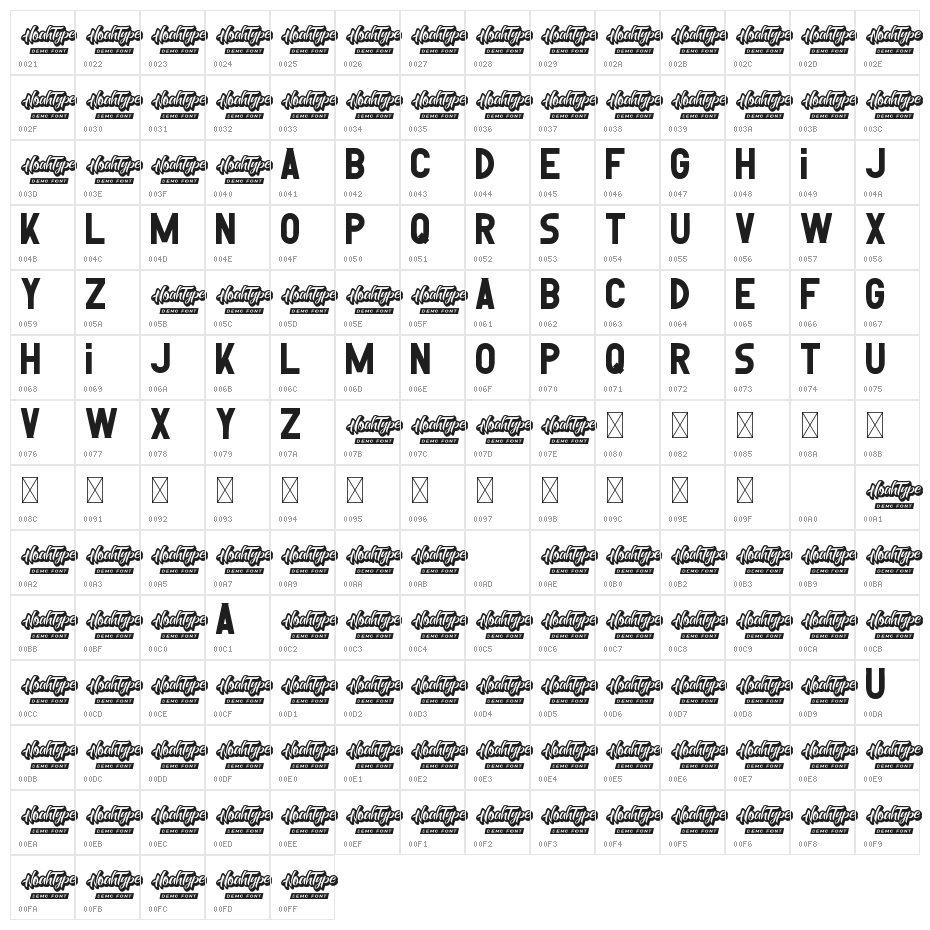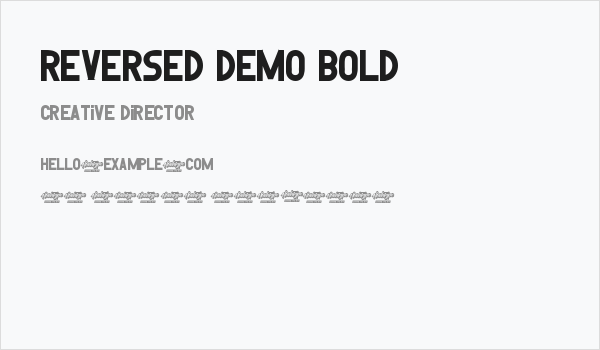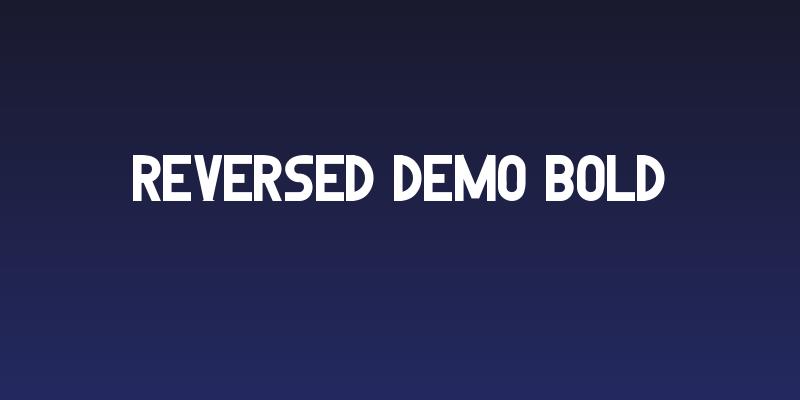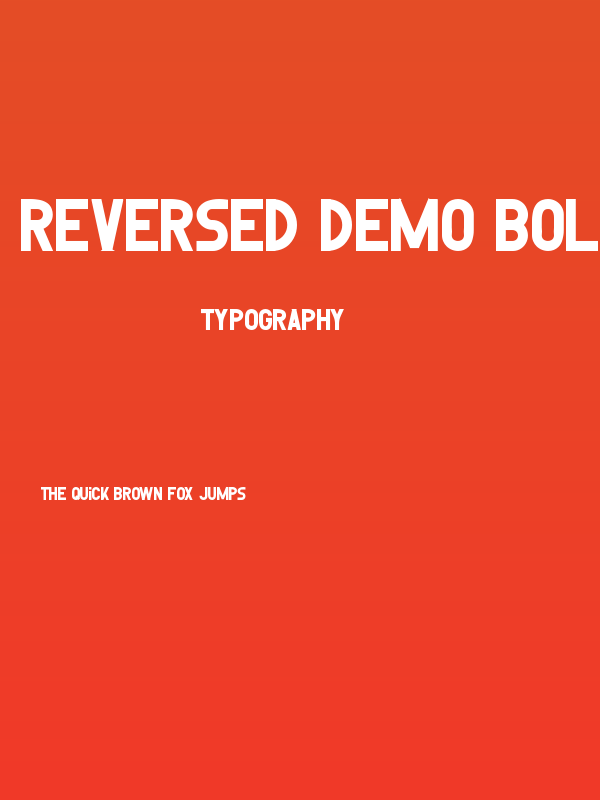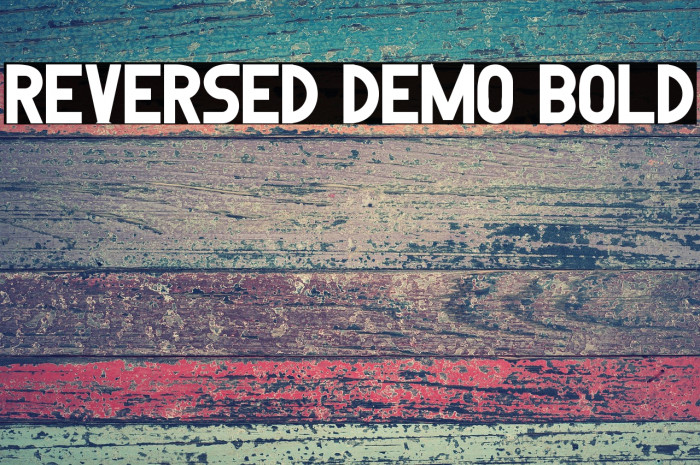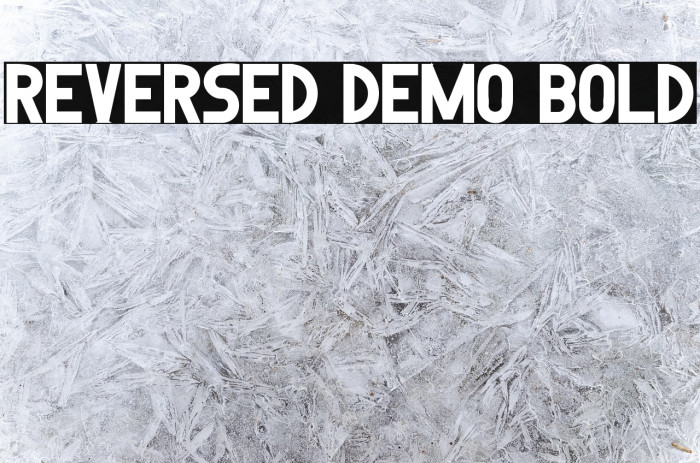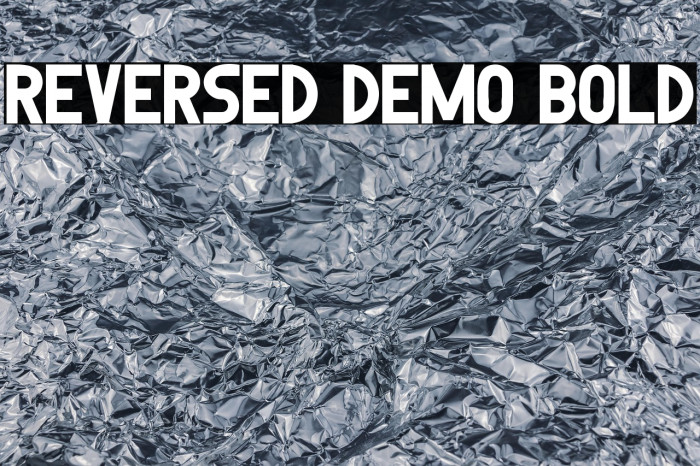
Reversed Demo Bold Font
Reversed Demo Bold Description
This font features bold, geometric letterforms with a strong presence, making it ideal for attention-grabbing designs. The uppercase letters are uniform in height, while the lowercase letters maintain a consistent style that complements the uppercase. The characters are well-defined with sharp angles and clean lines, giving the font a modern and assertive look. The spacing between characters is tight, which enhances its bold appearance. This font is versatile and can be used in various design projects that require a strong visual impact.
| Proposed Projects | Ideal for branding, headlines, posters, and any design that requires a strong, modern aesthetic. |